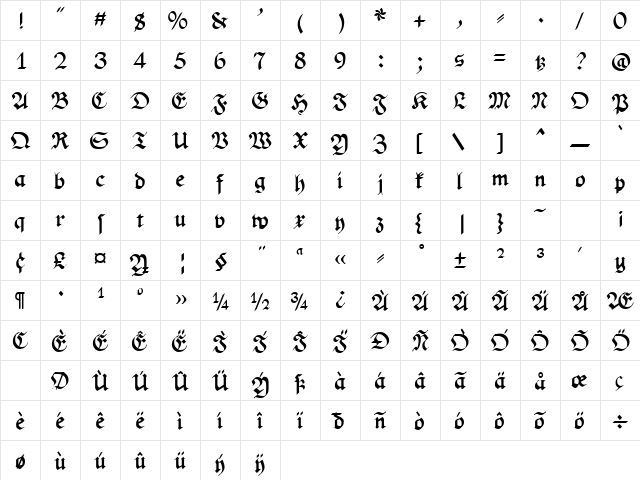
PhederFrackDtsh Bold Free Font
PhederFrackDtsh Bold
Complete PhederFrackDtsh Bold glyph index. Displaying only characters natively supported by PhederFrackDtsh Bold font.
Design Context for PhederFrackDtsh
PhederFrackDtsh is a composed and adaptable typeface that performs quietly and consistently across a wide range of design contexts. Its bold stroke weight gives it real presence on the page.